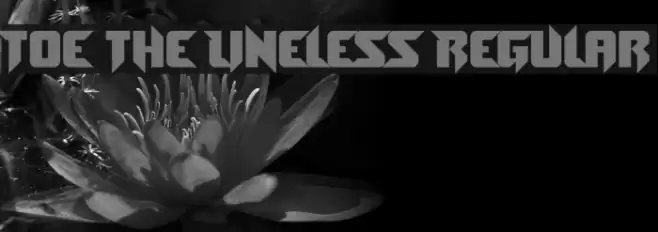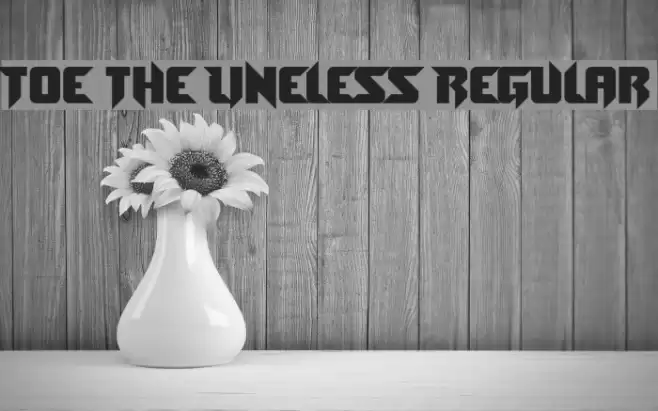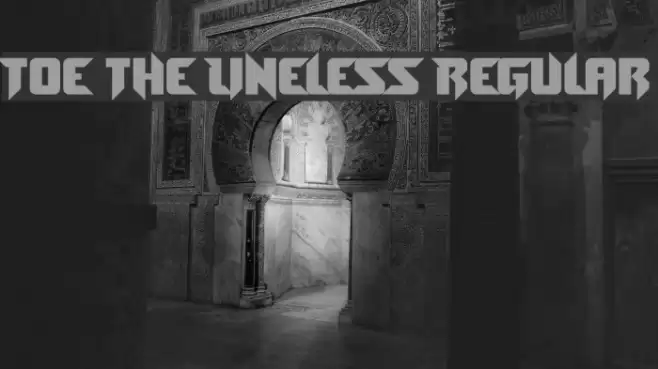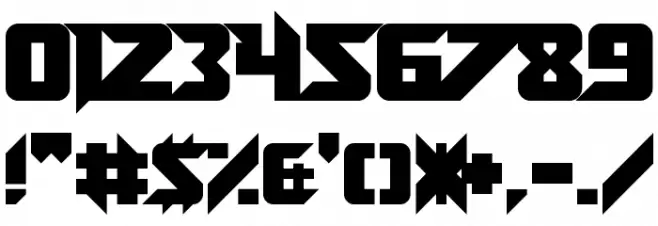
Toe the Lineless Regular Font
Toe the Lineless Regular Description
This font features a bold, angular design with sharp edges and geometric shapes, creating a striking and modern appearance. The characters are constructed with a combination of straight lines and pointed angles, giving them a dynamic and aggressive look. The uppercase and lowercase letters maintain a consistent style, with the uppercase being more prominent and the lowercase slightly more compact. The numbers and special characters follow the same design principles, ensuring uniformity across the font. This style is reminiscent of futuristic or sci-fi themes, making it ideal for projects that require a bold and attention-grabbing typeface.
A bold, angular font with sharp edges and a futuristic style from Uncategorized fonts.
- Proposed Projects: Ideal for sci-fi themed posters, video game titles, or branding for tech companies.
- Overall Style: Futuristic